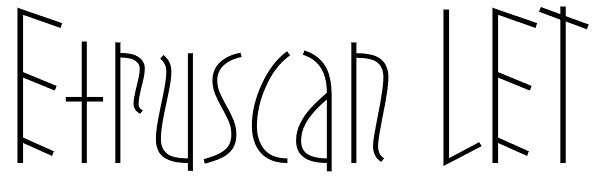
Etruscan
British designer Tim Donaldson based the capitals for this fascinating typeface on early Etruscan letterforms created thousands of years ago. The lowercase is softer in appearance and provides the perfect accompaniment to the angular uppercase. The...